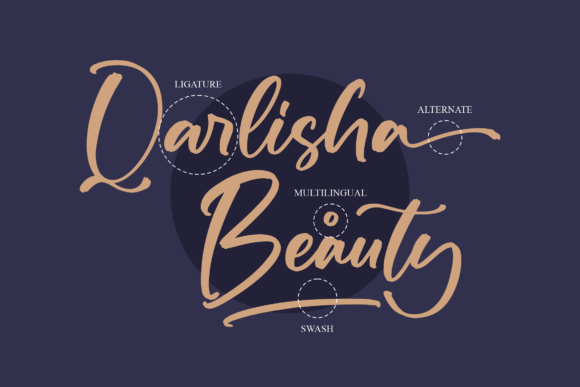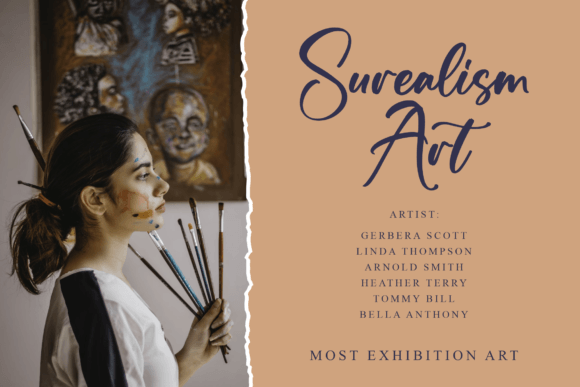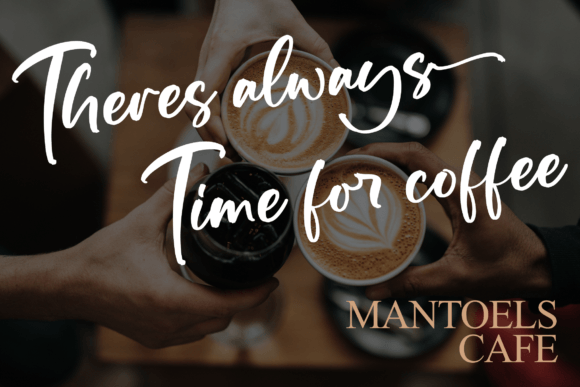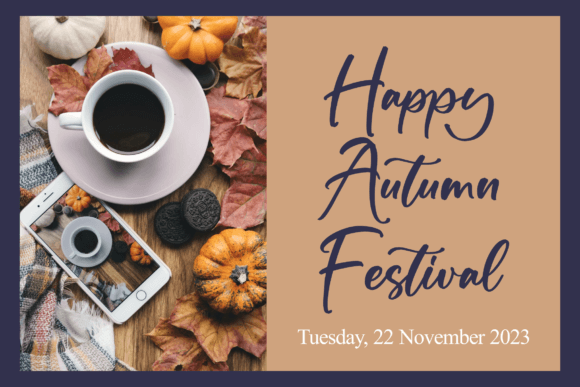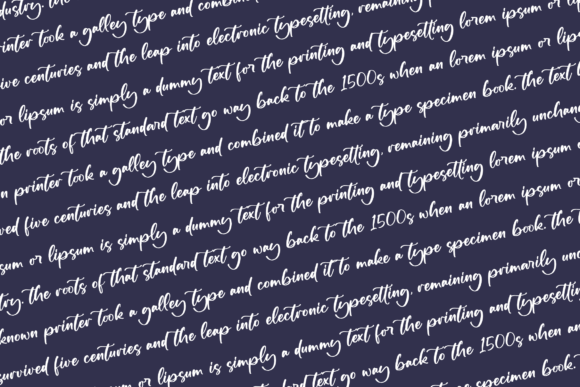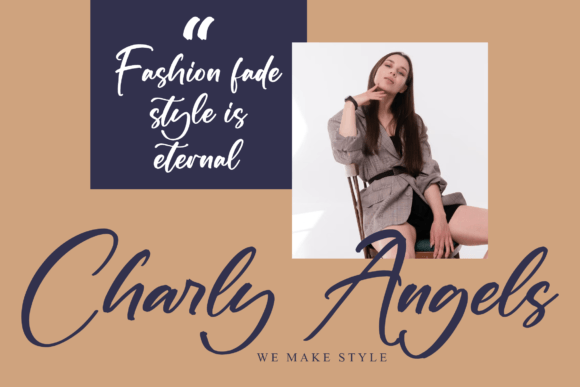
Introduction to Qarlisha Font
Have you ever been in the midst of a creative project, pouring your heart and soul into a design, only to feel like something’s missing? A spark of elegance, perhaps? That’s where the enchanting Qarlisha Font comes in – a romantic and sweet calligraphy typeface that’s sure to add a touch of luxury to any project you embark on.
With its beautifully crafted characters that dance along the baseline, Qarlisha Font is a game-changer for designers looking to elevate their work. Whether you’re working on a high-end branding project or a creative campaign with a transparent background, this font is sure to impress. Plus, with its PUA encoding, you can easily access all the amazing glyphs and swashes to add an extra layer of sophistication to your design.
Key Features of Qarlisha Font
- High-quality, unique font design perfect for creative projects requiring a distinctive look
- Unique characteristics include intricate details and subtle texture, adding depth and visual interest to any creative project
Honest Review: Qarlisha Font
As a designer, I’m always on the lookout for high-quality design resources to elevate my creative projects. Recently, I had the chance to work with the Qarlisha Font, and I’m excited to share my honest review.
What works well: ✨ The Qarlisha Font has a unique and stylish design that adds a touch of elegance to any project. Its transparent background makes it easy to use as a overlay or as a part of a design composition. The font is also highly customizable, which is perfect for designers who want to create a bespoke look for their clients.
- High-quality design with a unique and stylish aesthetic
- Transparent background for easy use as an overlay or design composition
- Highly customizable for bespoke designs
Overall, I’m impressed with the Qarlisha Font’s unique design and high-quality features. As a design resource, it’s an excellent choice for creative projects that require a touch of sophistication and elegance. I highly recommend it to designers looking for a versatile and free font download.
Tips for Getting the Most Out of Qarlisha Font
For the best results, use Qarlisha Font with a transparent background to create a unique and eye-catching design. Experiment with different font sizes, colors, and combinations to find the perfect look for your creative project.
Qarlisha Font is ideal for a variety of creative projects, including:
- Infographics and presentations
What is the recommended font size for the Qarlisha Font in a creative project?
The recommended font size for the Qarlisha Font depends on the specific design application and the desired visual impact. However, as a general guideline, we recommend using font sizes between 14pt and 24pt for body text, and 36pt to 48pt for headings. This will ensure that the font is highly legible and visually appealing in your design project.